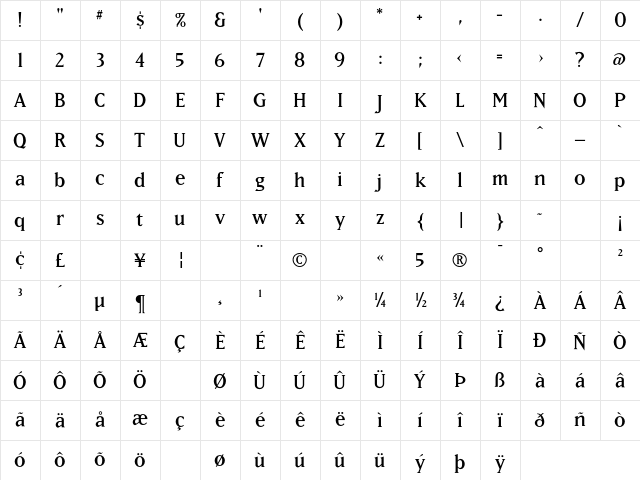
MatrixLining Regular Free Font
MatrixLining Regular
Design Context for MatrixLining
MatrixLining is a composed and adaptable typeface that performs quietly and consistently across a wide range of design contexts.